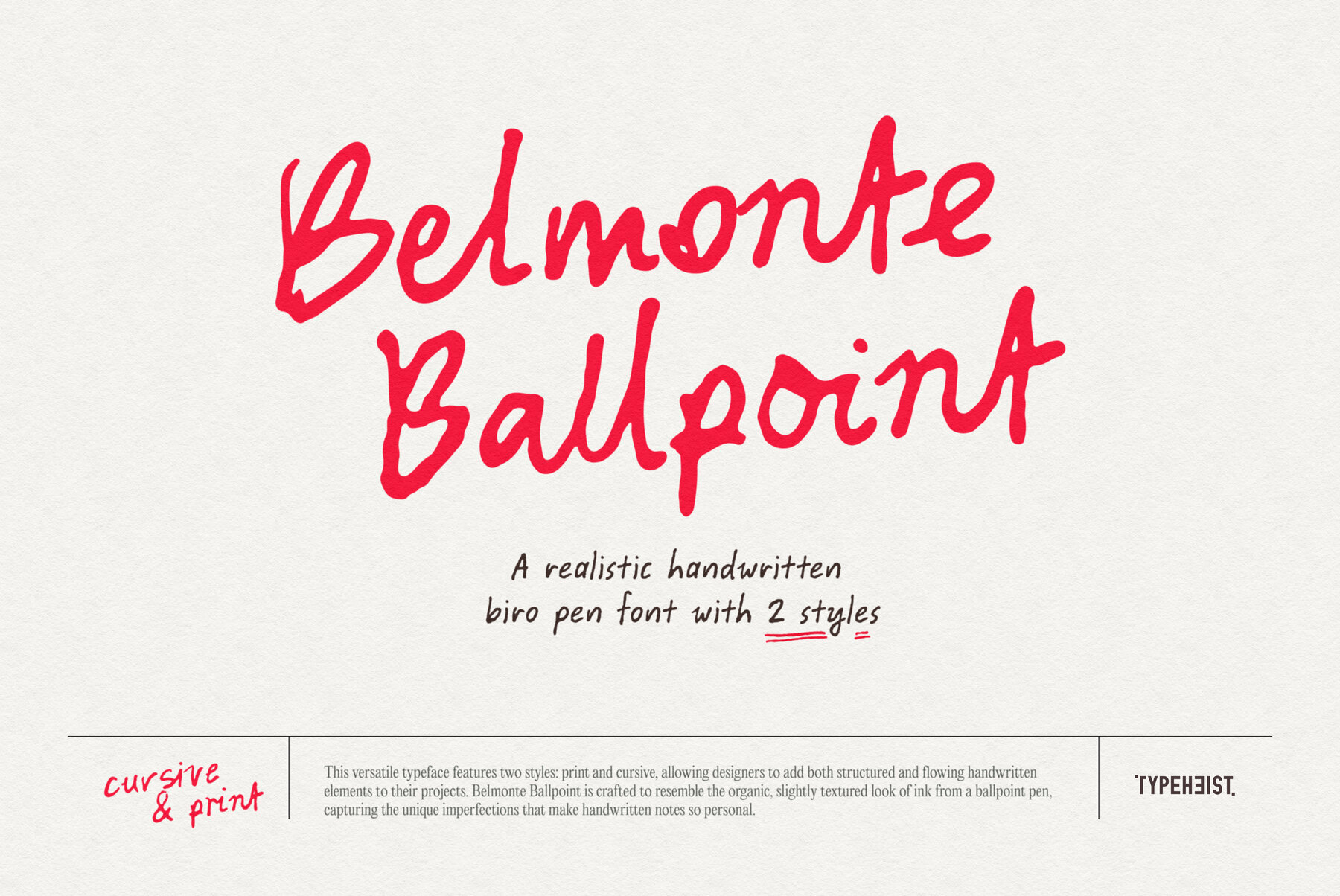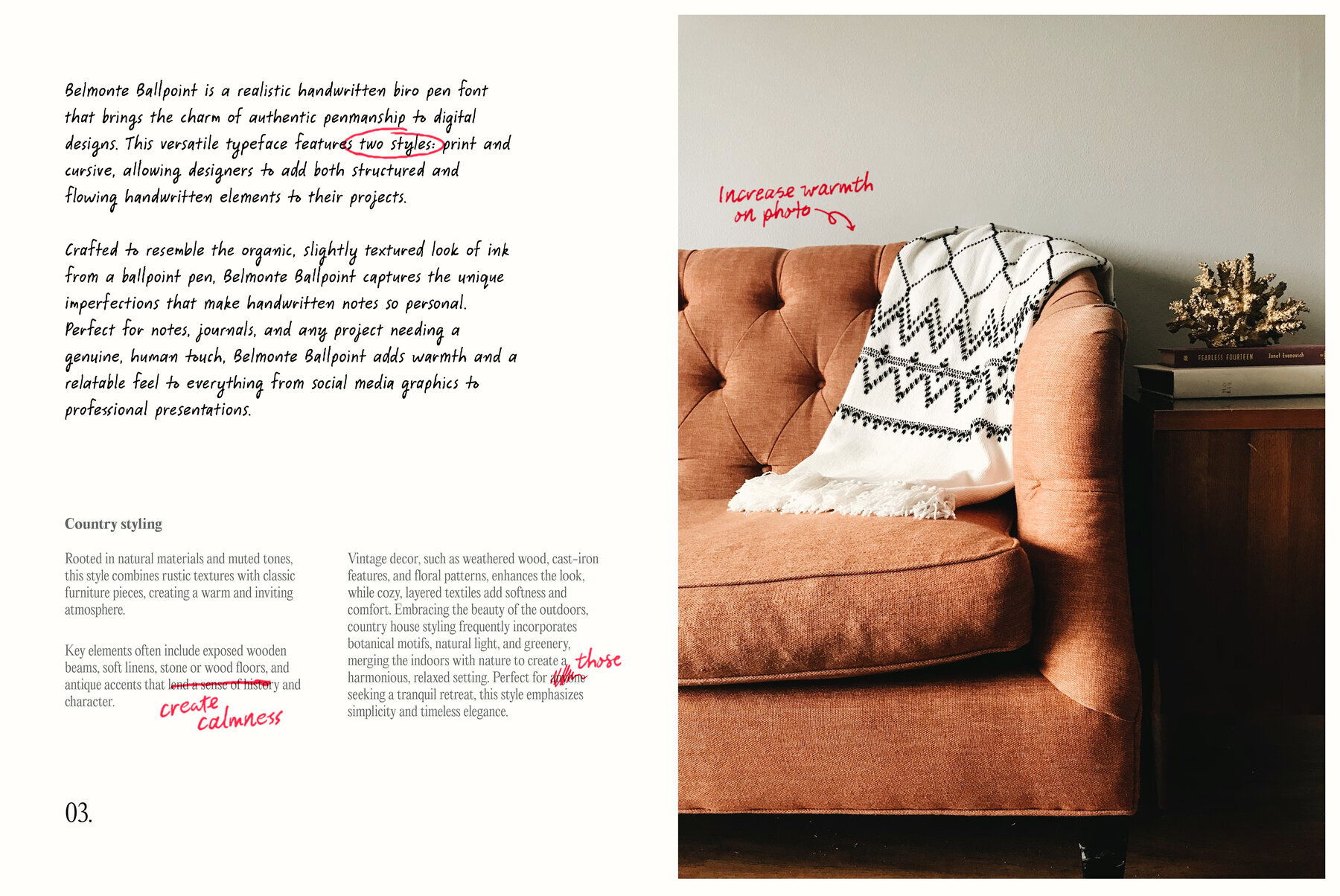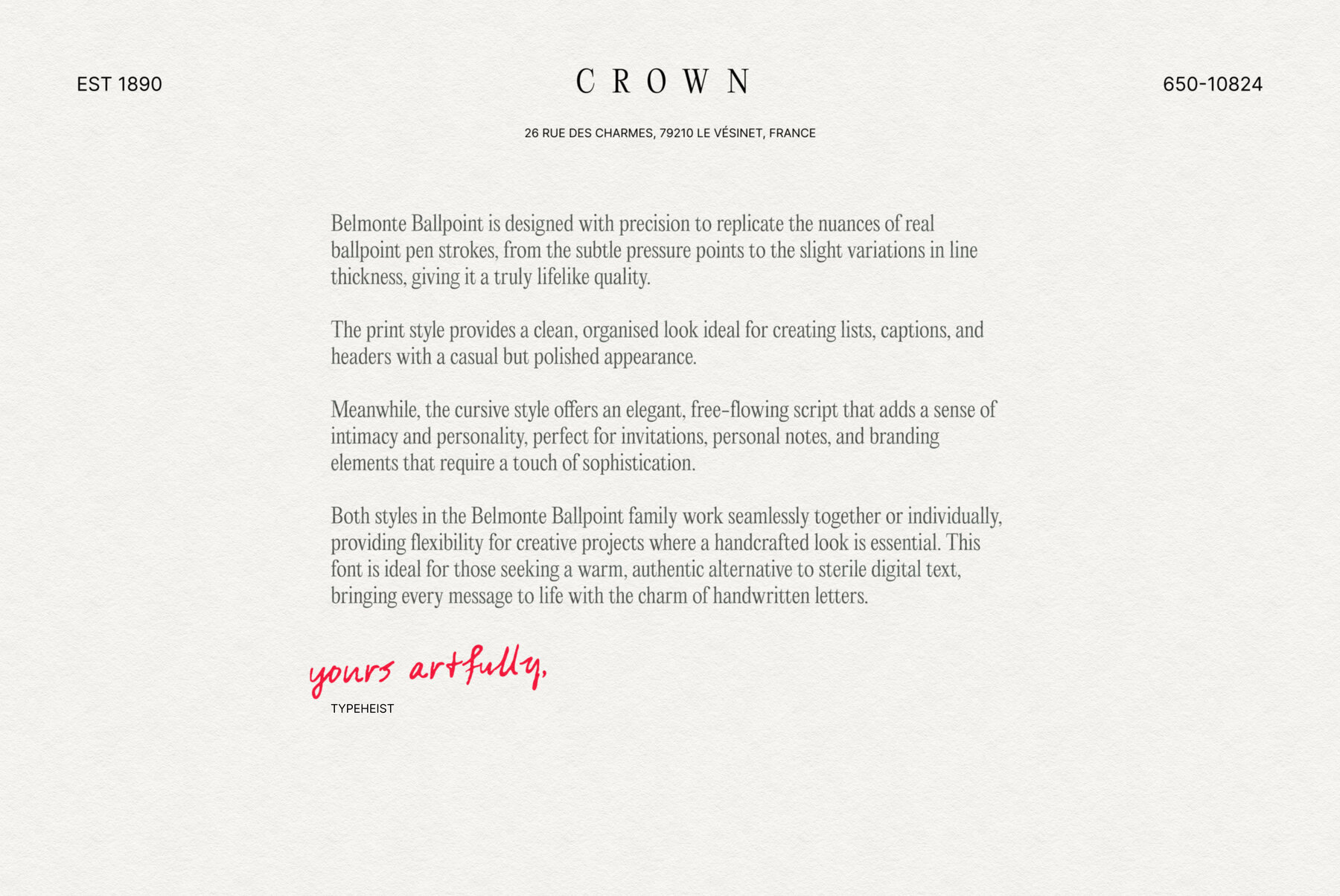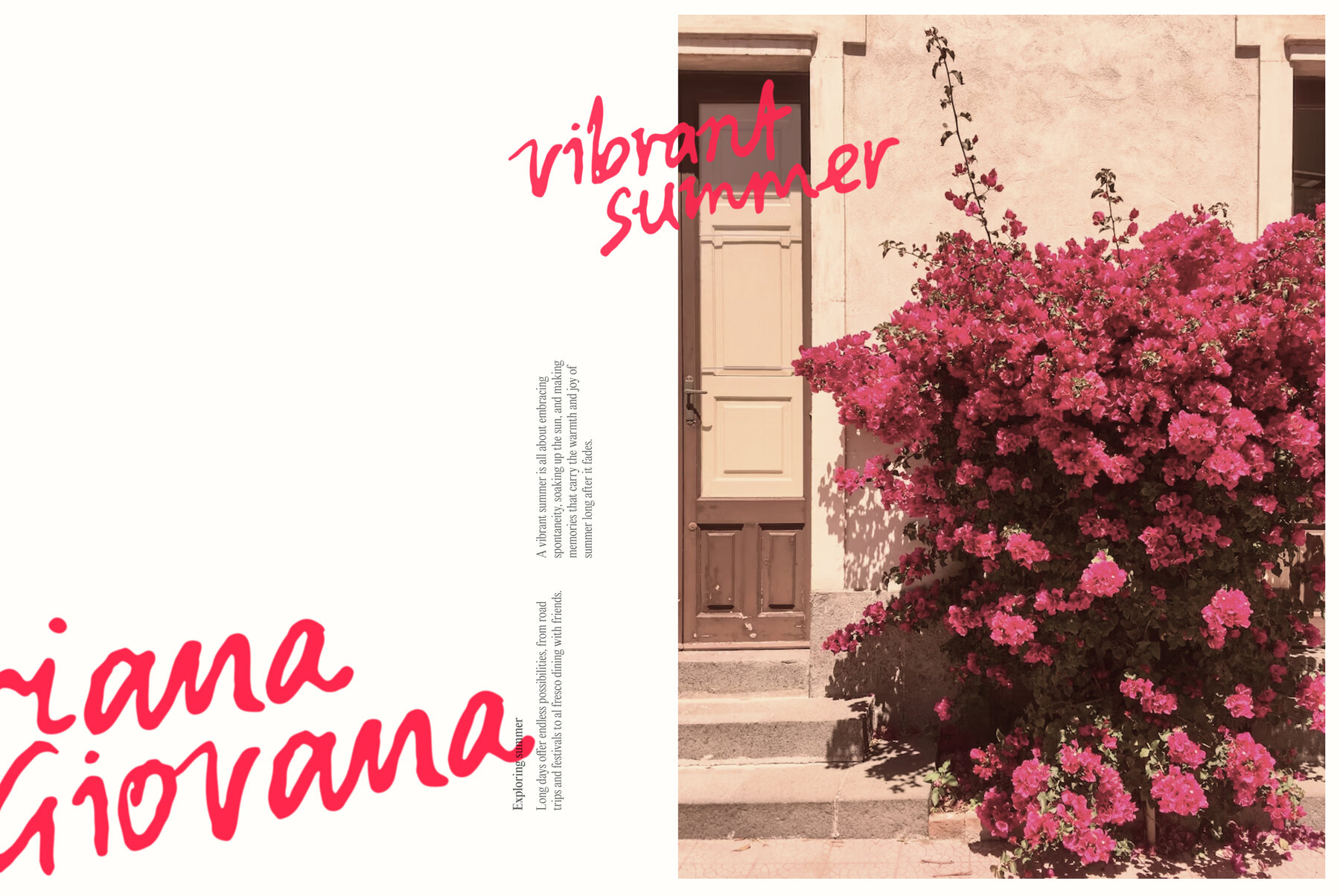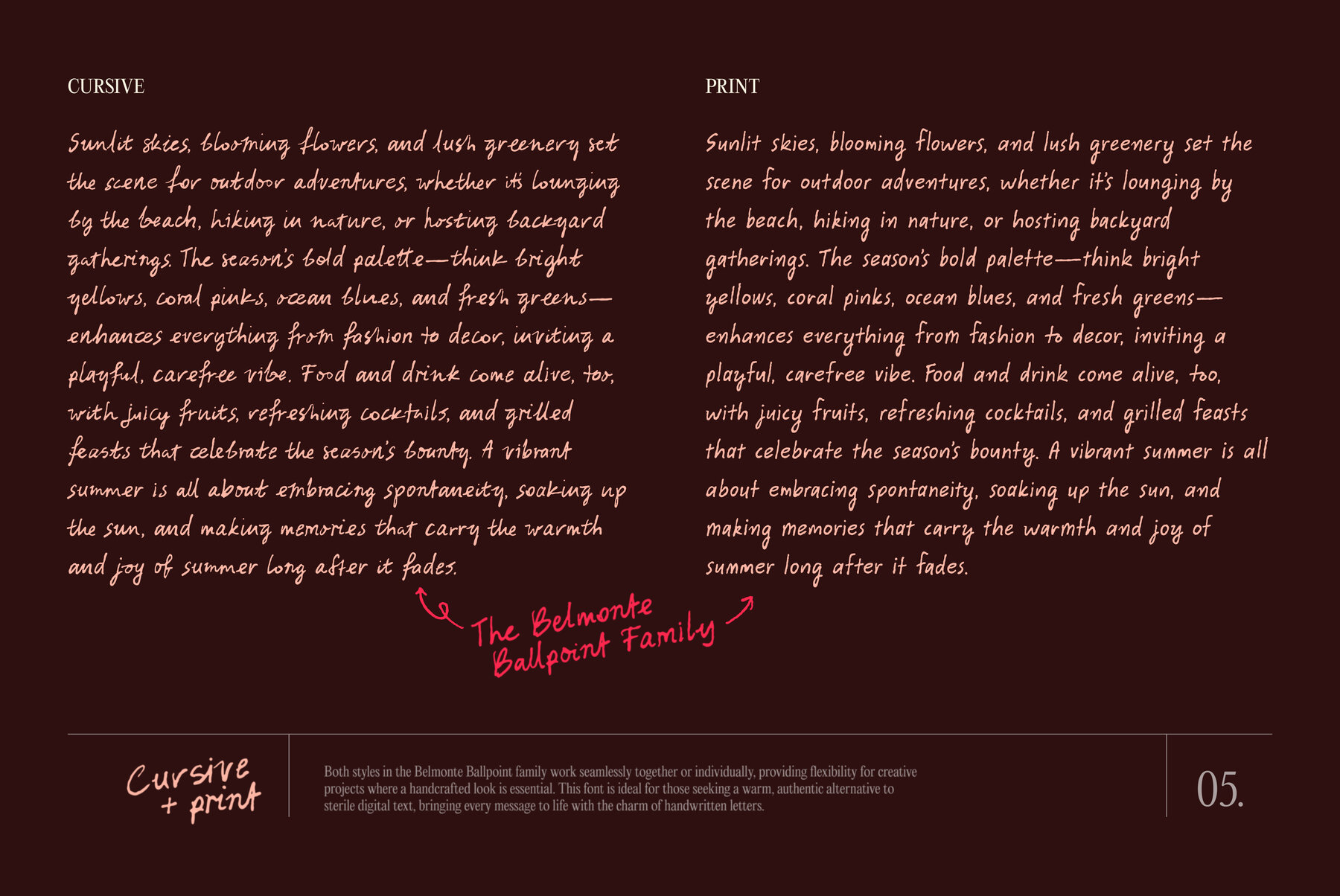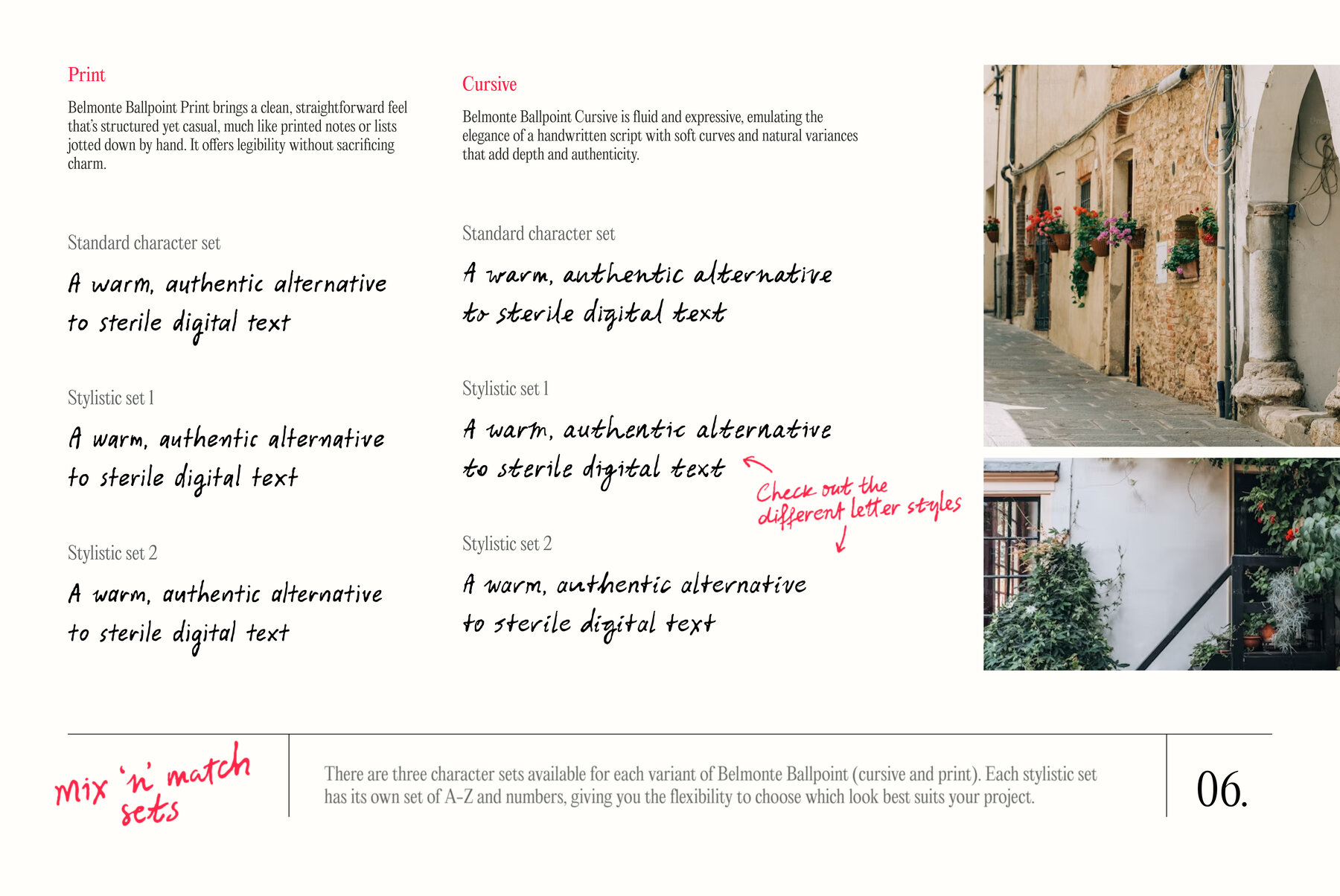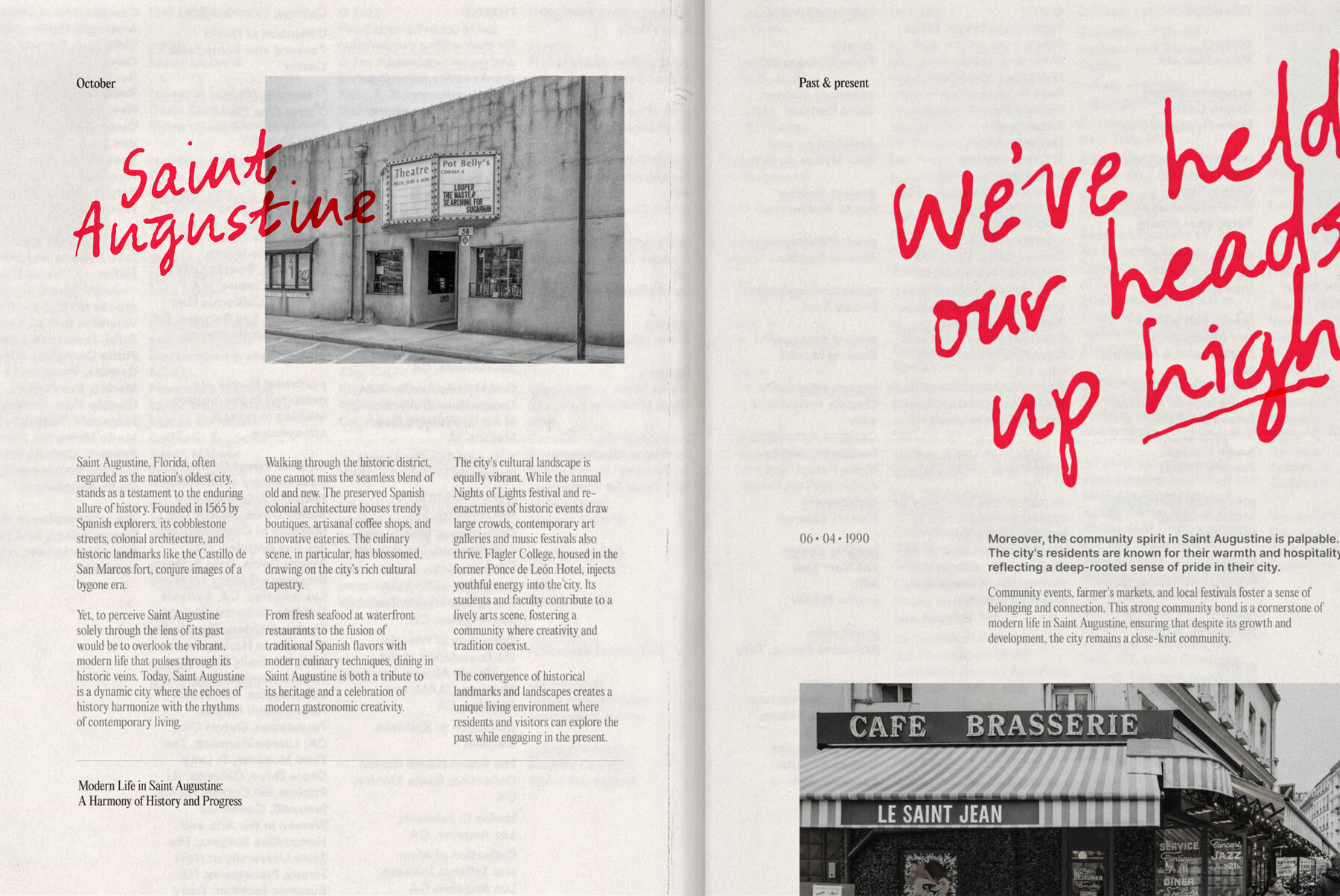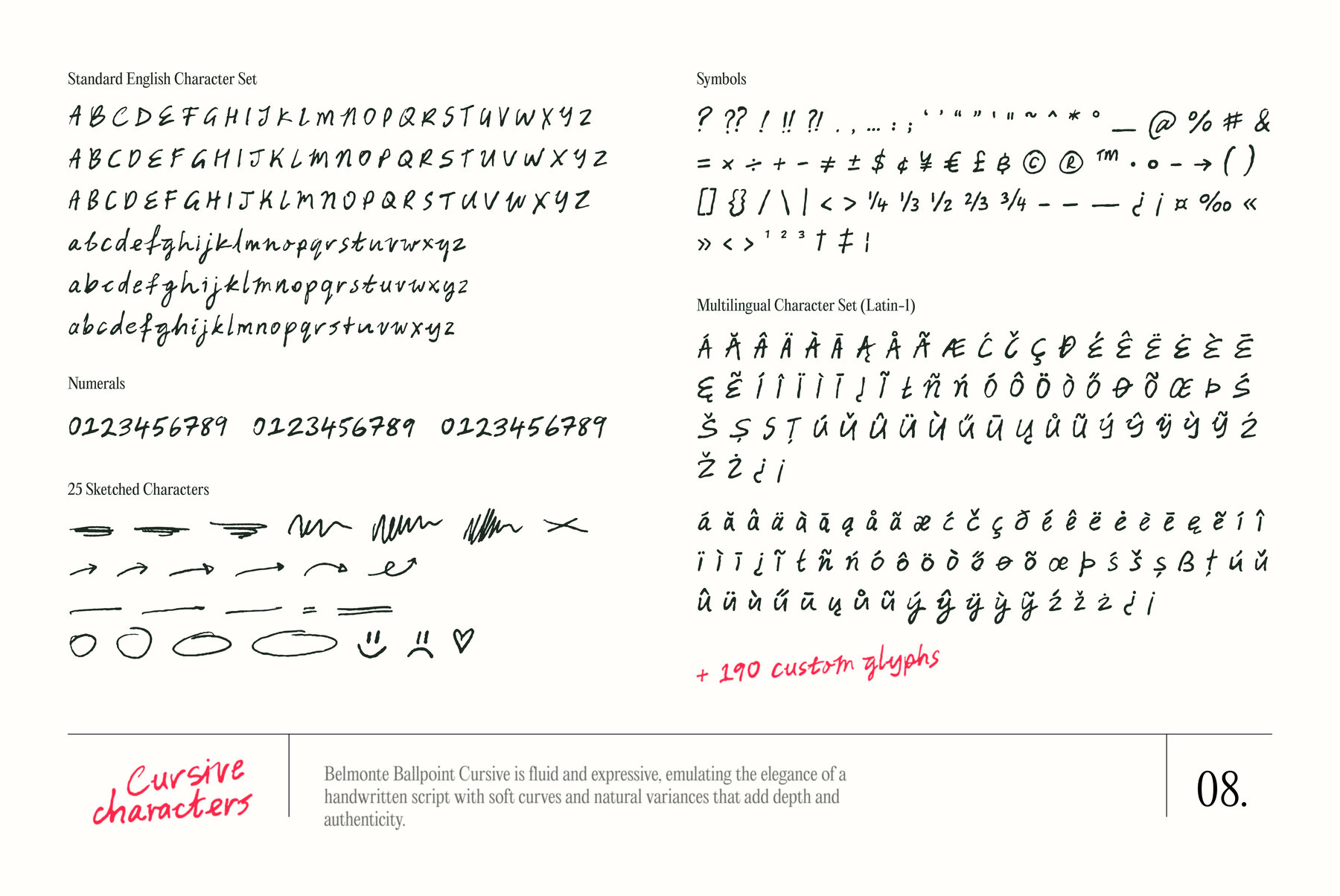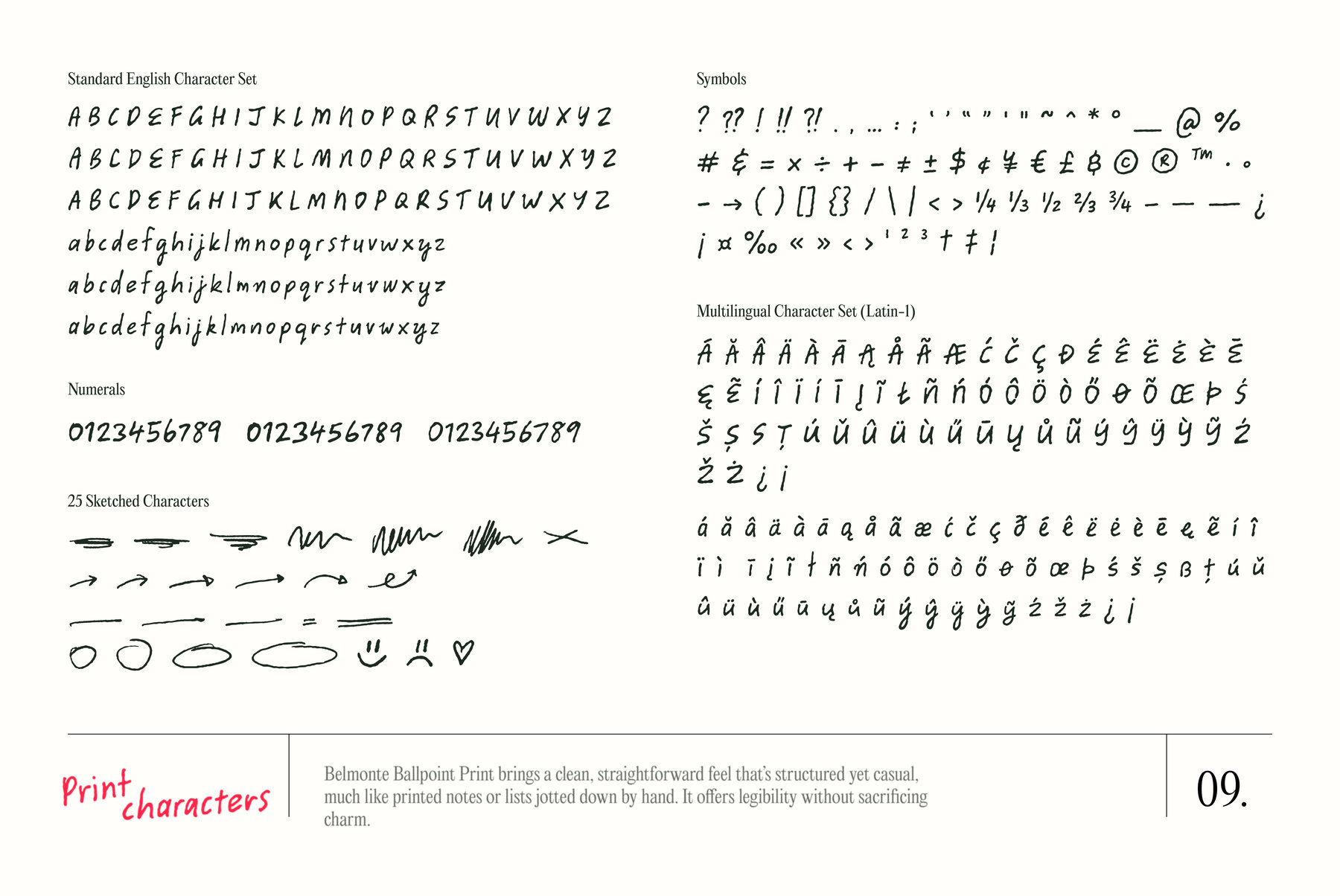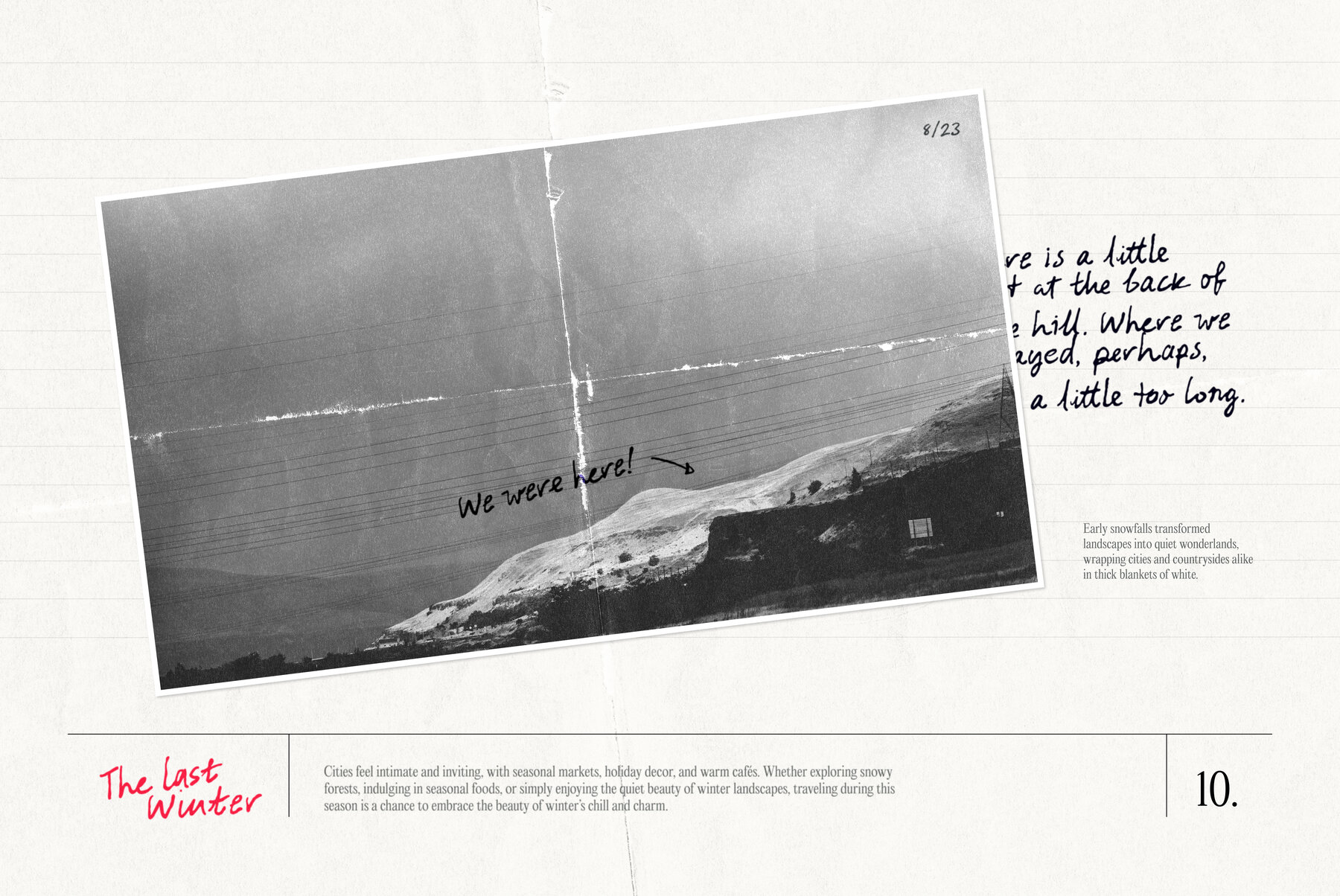
Belmonte Ballpoint Font
This versatile typeface features two styles: print and cursive, allowing designers to add both structured and flowing handwritten elements to their projects. Belmonte Ballpoint is crafted to resemble the organic, slightly textured look of ink from a ballpoint pen, capturing the unique imperfections that make handwritten notes so personal. Both styles in the Belmonte Ballpoint family work seamlessly together or individually, providing flexibility for creative projects where a handcrafted look is essential.
Belmonte Ballpoint has multilingual characters, three sets of A-Z and 0-9 characters, as well as an extended set of Latin characters.
Additionally, this font has its own set of 25 scribble glyphs which are accessible via keyboard shortcuts. Markup your documents as if it were a real pen ;)